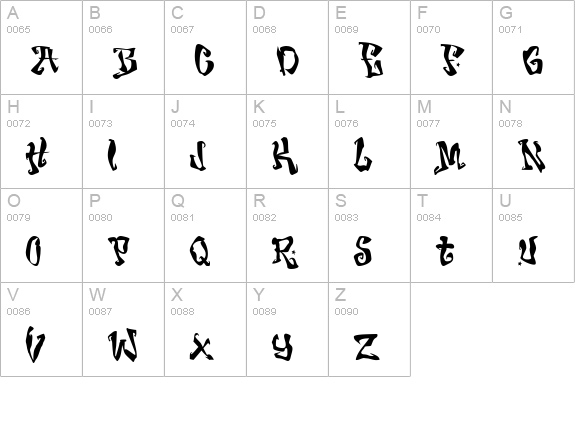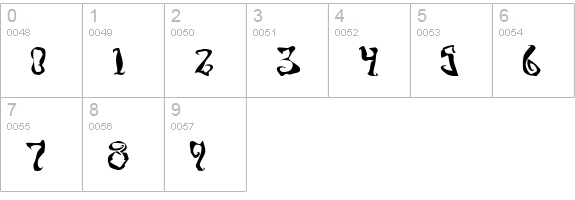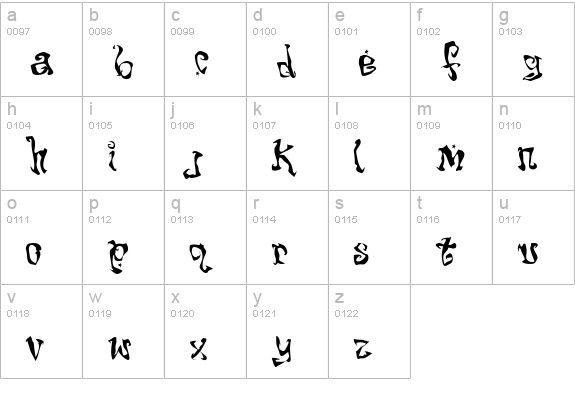
HouseParty Font Details
HouseParty font is a fun and playful typeface that is perfect for adding a touch of whimsy to your designs. With its bold and dynamic letterforms, HouseParty is sure to make a statement and stand out from the crowd. Whether you're creating party invitations, posters, or social media graphics, this font will bring a festive and energetic vibe to your project. Best of all, HouseParty font is completely free to download at FontsMarket.com. So go ahead and add some excitement and personality to your designs with this lively and expressive typeface. Let your creativity run wild and bring the party to your projects with HouseParty font!